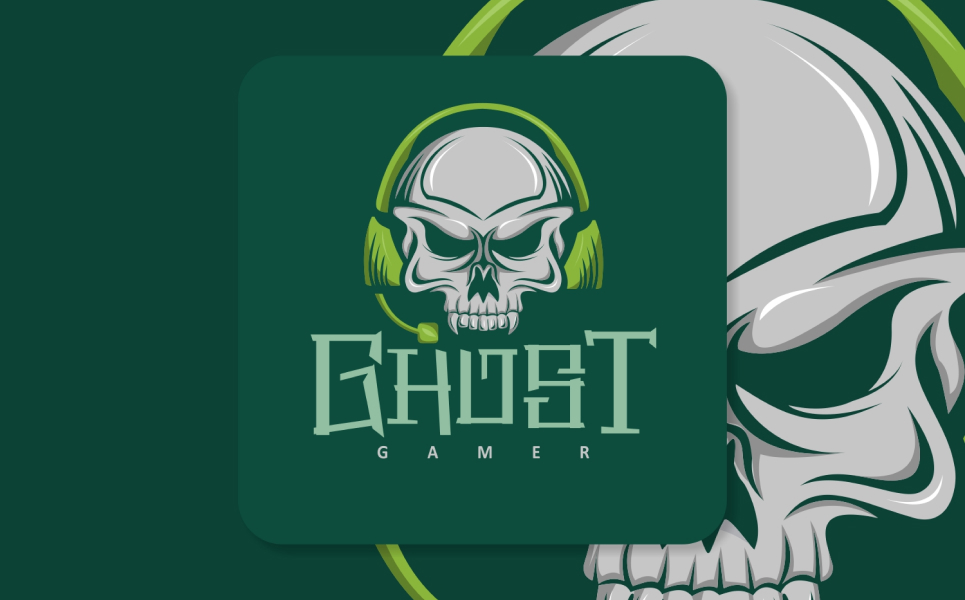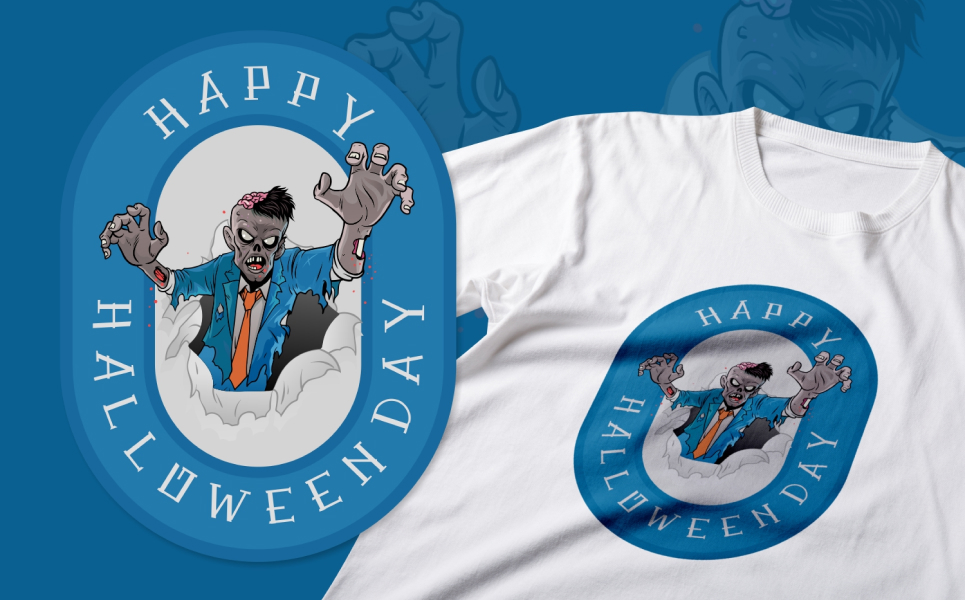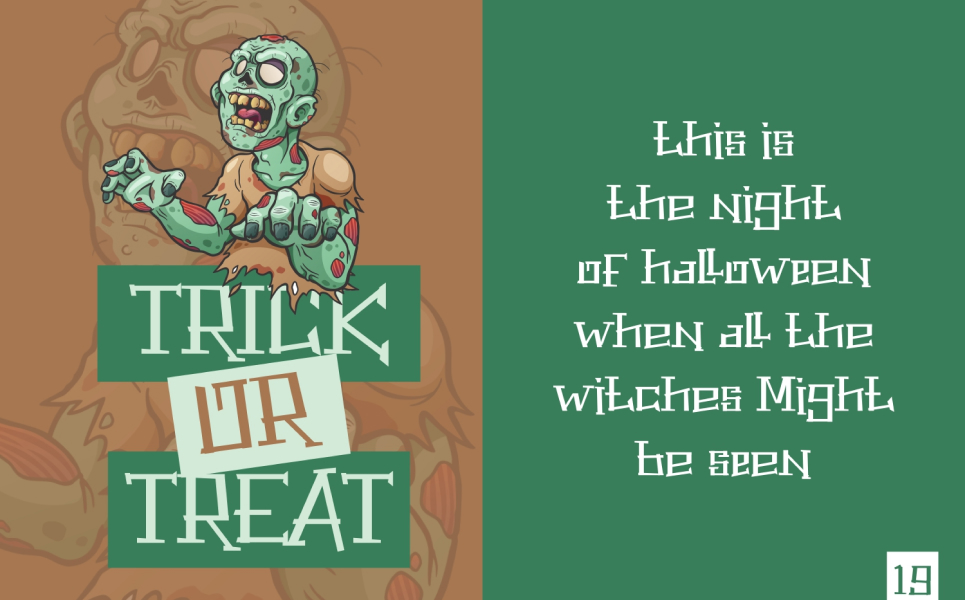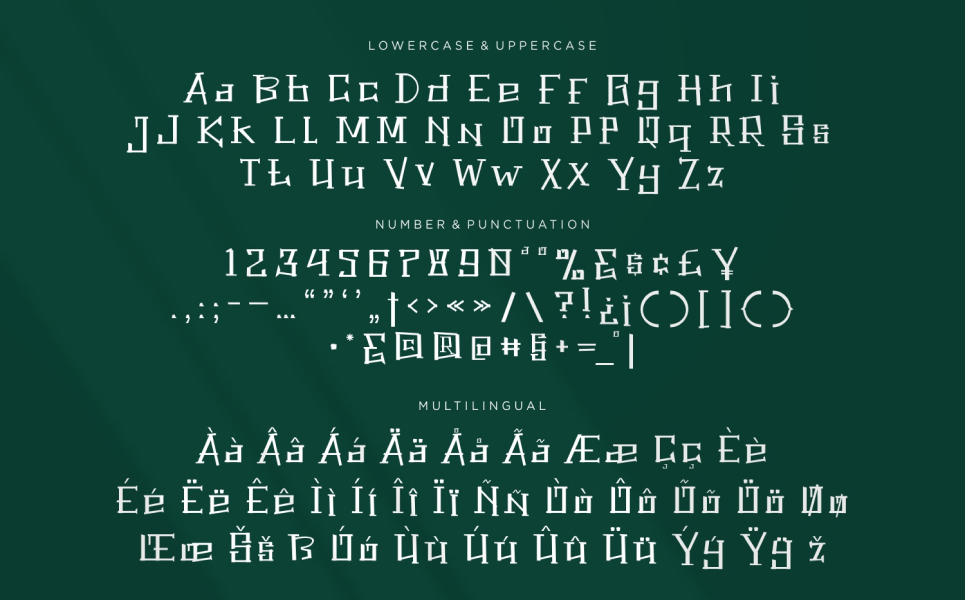
The Power Of Fear - Halloween Typeface Fonts
Description:
The Power Of Fear display font look with simple, clean and visual elegance with smooth curves and beautiful ligatures.
A very versatile font that works in both large and small sizes. This font is suitable for a wide variety of projects such as headlines, logos, labels, branding projects, magazines, homeware designs, product packaging, mugs, quotes, posters and more.
FEATURES
- Uppercase and Lowercase
- Punctuation, Number and Symbol\
- Multilingual Support ÀÁÂÃÄÅÆÇÈÉÊËÌÍÎÏÐÑÒÓÔÕÖØÙÚÛÜÝ